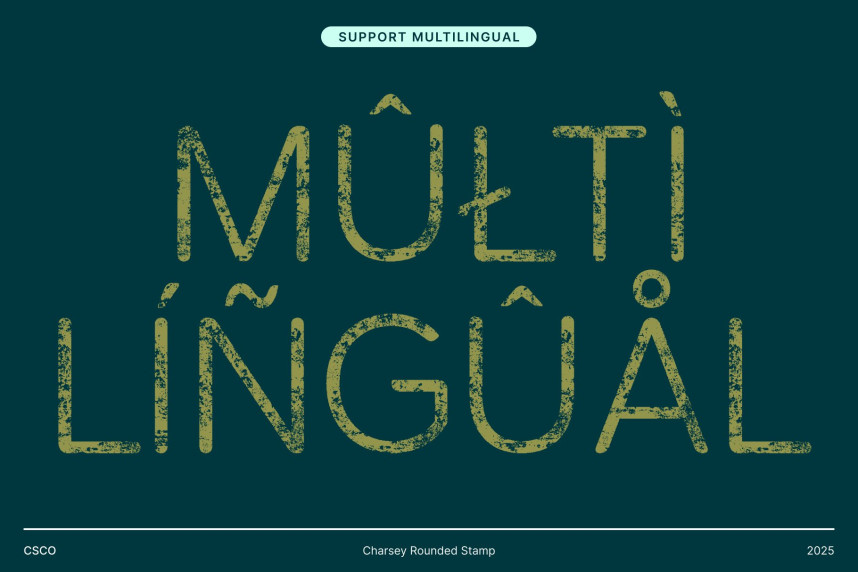
Charsey Rounded Stamp Font
Charsey Rounded Stamp Font – Modern Sans Serif with Vintage Texture and Confident Style Clean, Confident Sans Serif for Modern Designs. This is a modern sans serif font that combines sleek, rounded shapes with strong geometric construction. Its clean lines and balanced proportions convey clarity, professionalism, and confidence, making it an ideal choice for designers who want typography that communicates authority while remaining approachable.